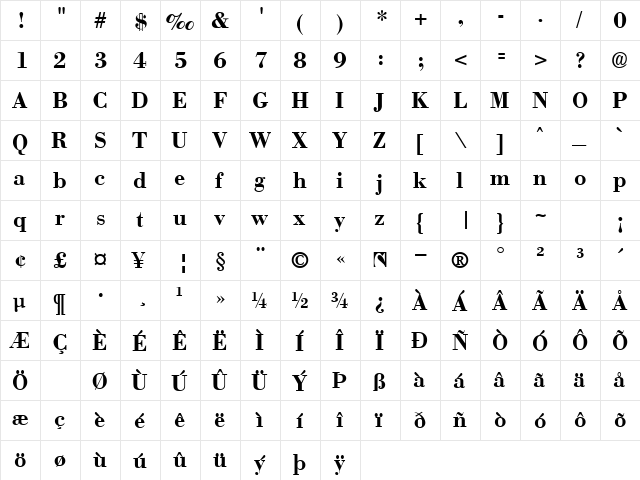
Bodonoff Bold
Design Context for Bodonoff Typeface
Bodonoff is a composed and adaptable typeface that performs quietly and consistently across a wide range of design contexts. The heavy weight commands attention and anchors typographic hierarchies.